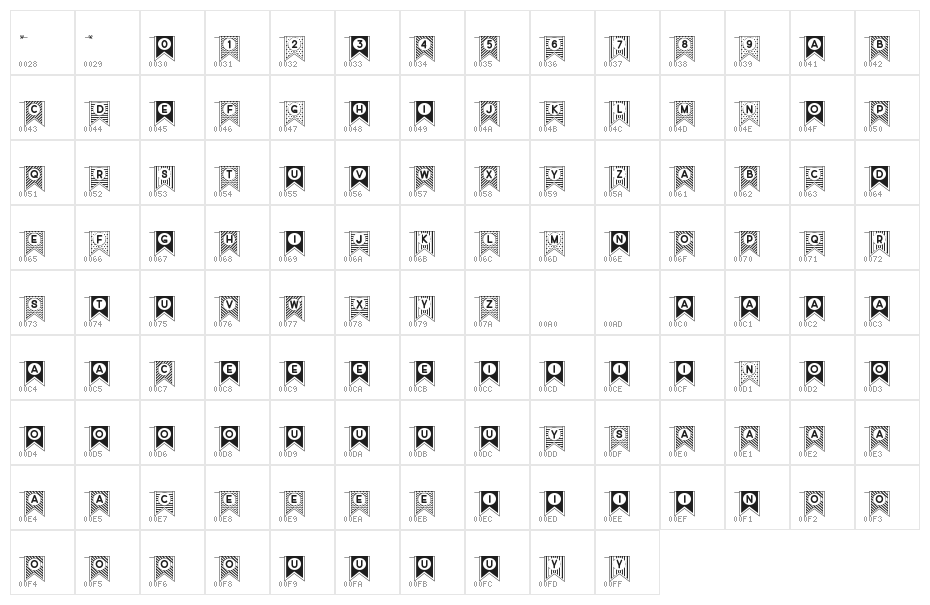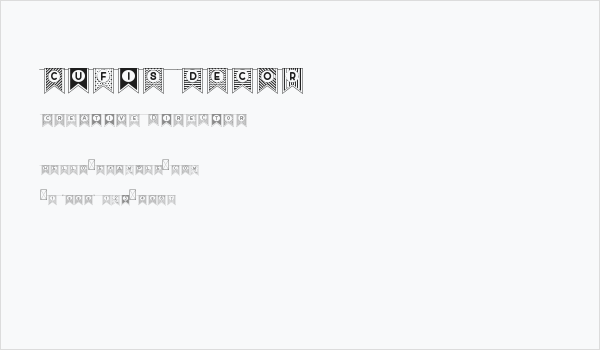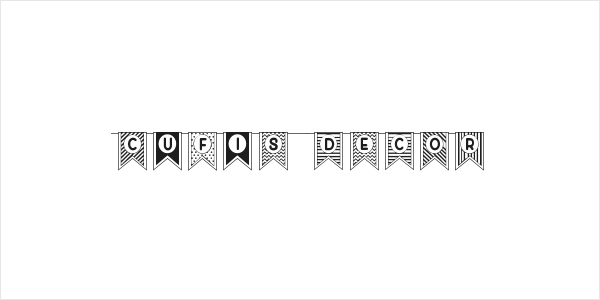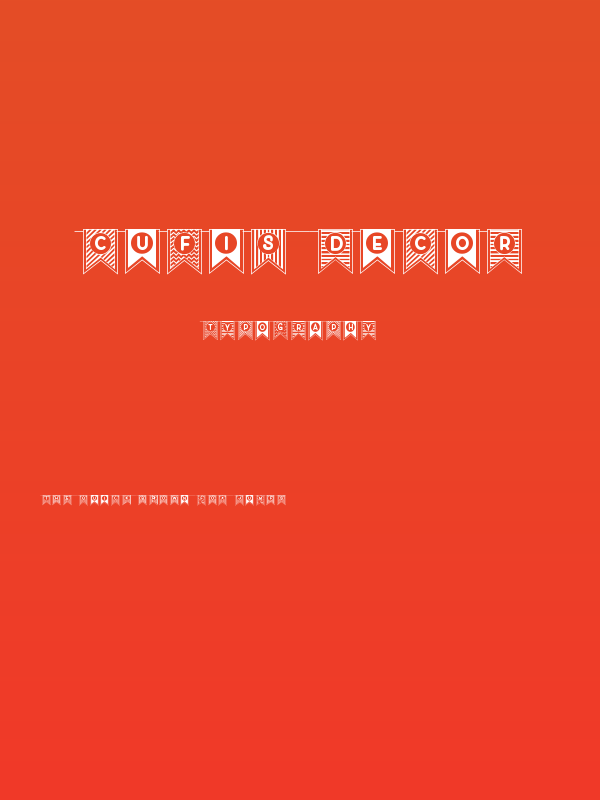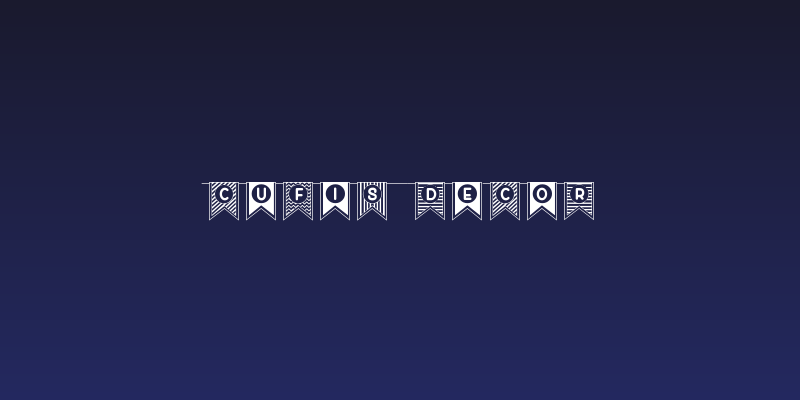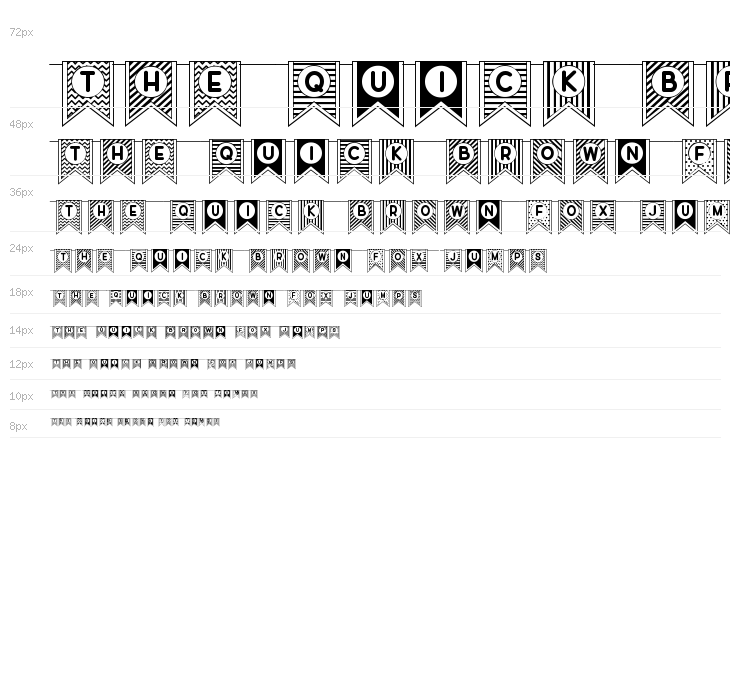
Cufis Decor Font
Cufis Decor Description
This decorative font features bold, uppercase letters and numbers set within flag-like banners. Each character is enclosed in a unique patterned banner, including stripes, polka dots, and zigzags, adding a playful and festive touch. The characters are bold and clear, making them stand out against the intricate designs of the banners. This font is ideal for creating eye-catching displays, party decorations, or any project that requires a fun and lively aesthetic. The uniformity of the banners provides a cohesive look, while the variety of patterns keeps it visually interesting.
| Proposed Projects | Ideal for party invitations, banners, festive posters, and playful branding projects. |